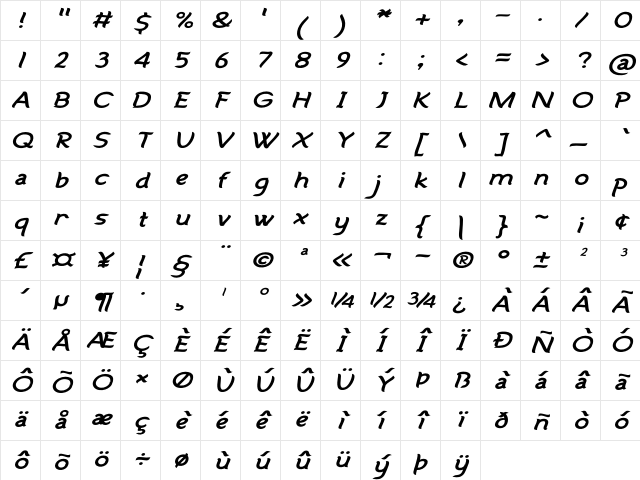
Oakvane Expanded Italic Free Font
Oakvane Expanded Italic
Style: Expanded Italic
Oakvane Family
Oakvane Expanded Italic
Complete Oakvane Expanded Italic glyph index. Displaying only characters natively supported by Oakvane Expanded Italic font.
Design Context for Oakvane
Oakvane is a composed and adaptable typeface that performs quietly and consistently across a wide range of design contexts. The slanted form adds forward momentum and visual energy.
Pro Tip: Use Oakvane for emphasis, pull quotes, and subheadings where its slanted energy can add rhythm to the layout.